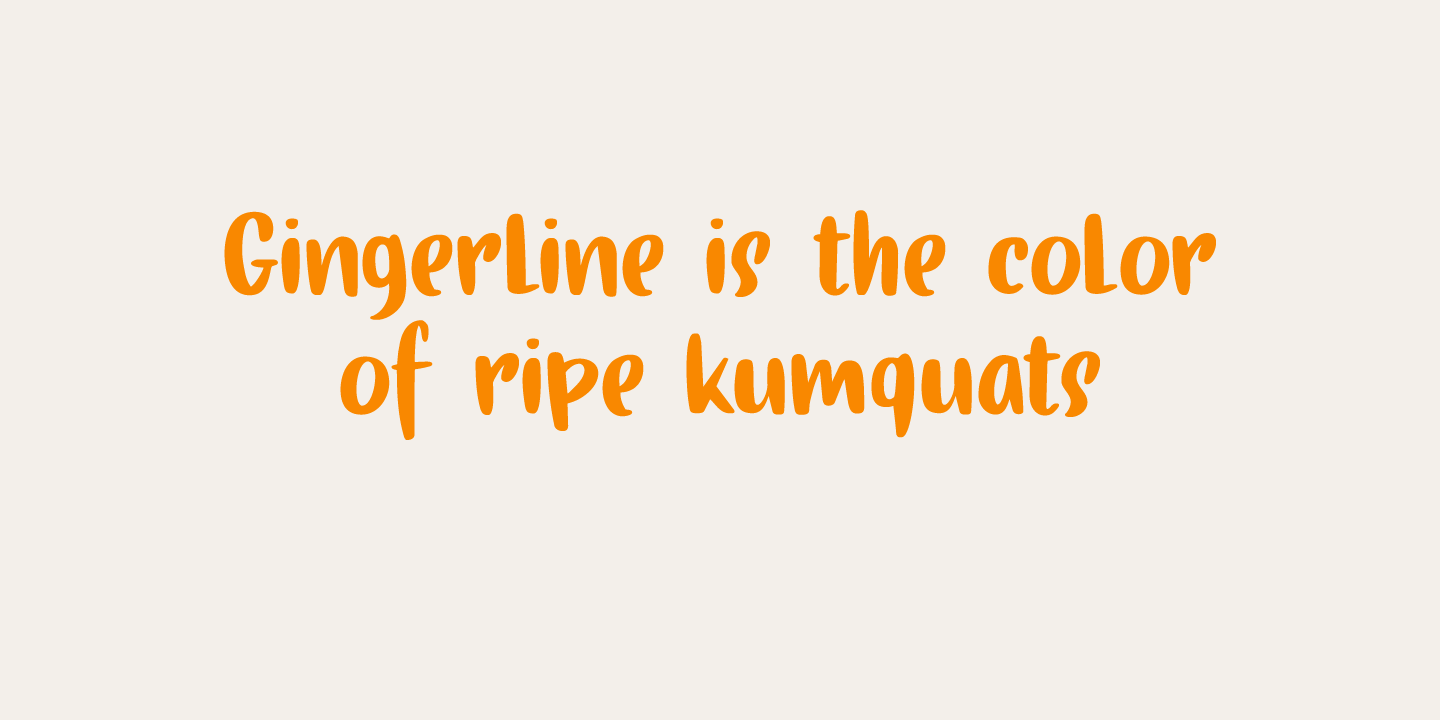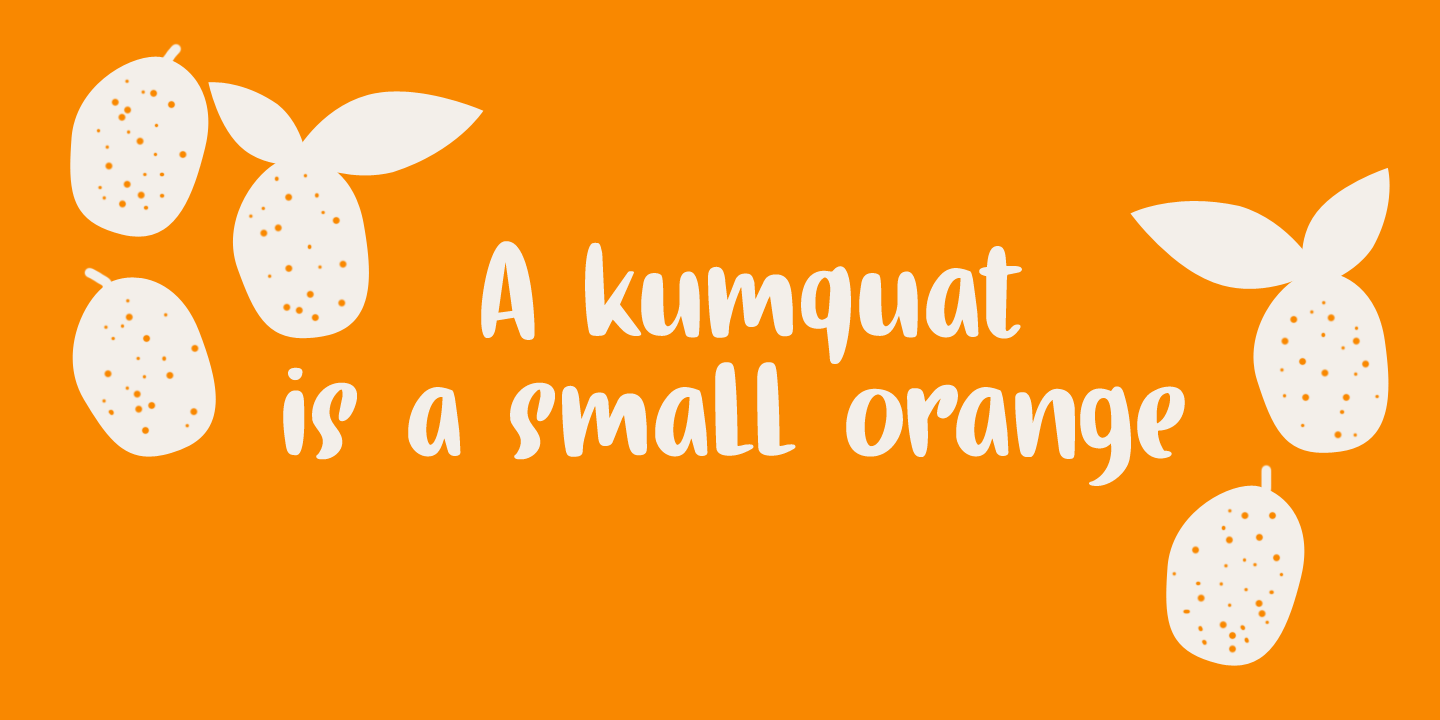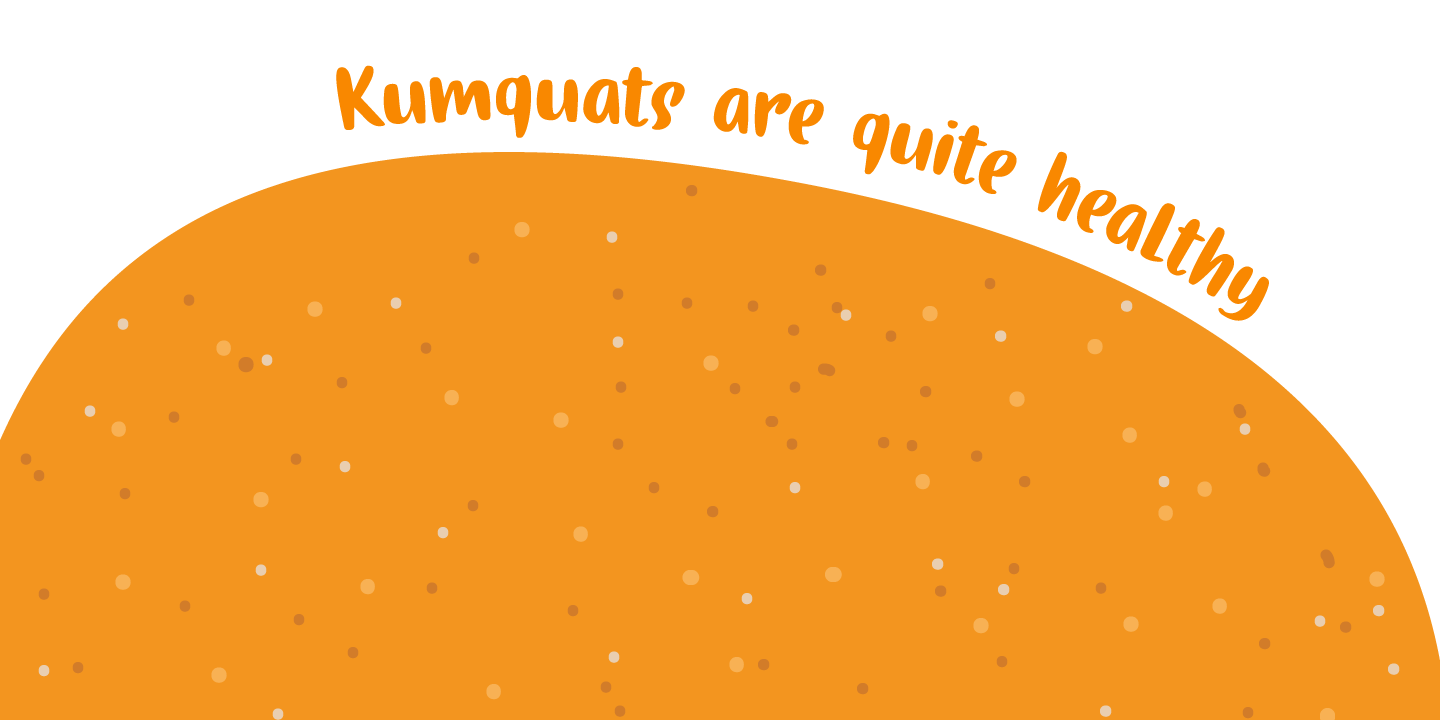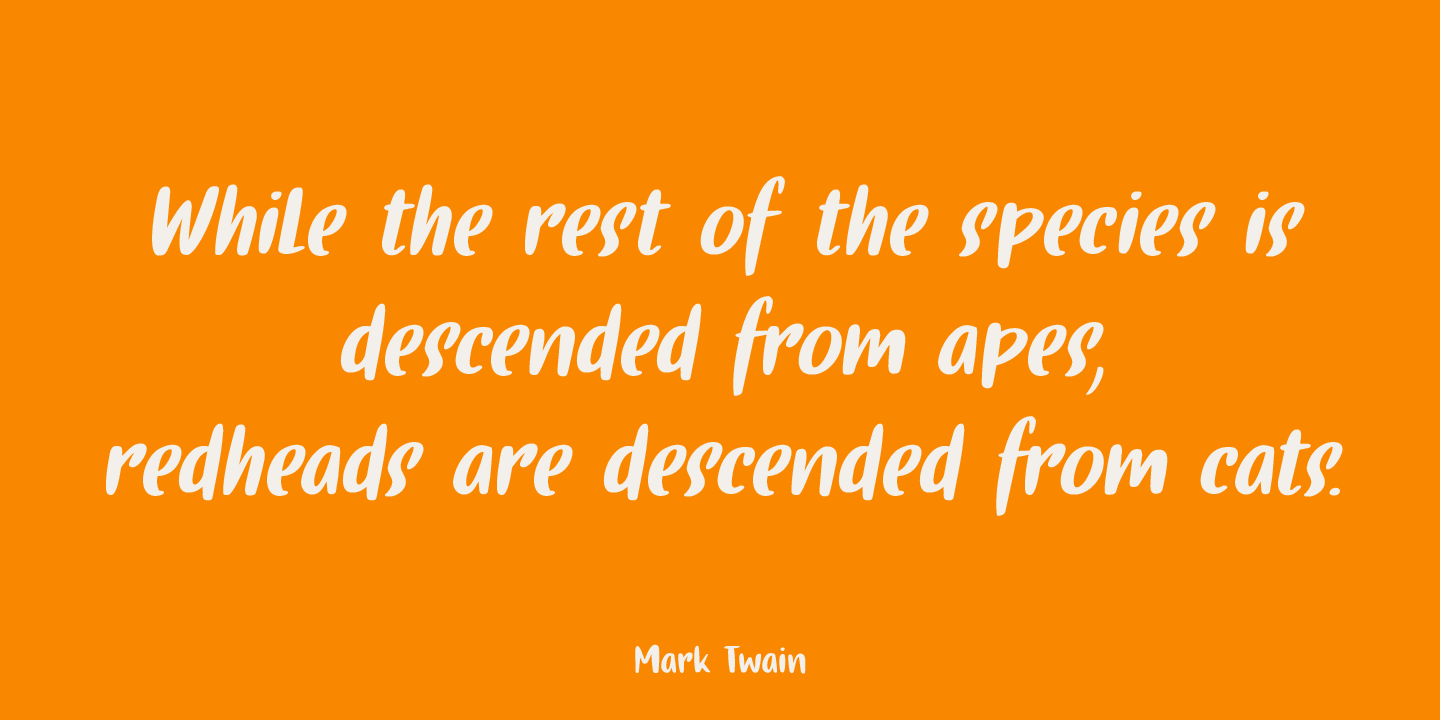
I love learning new words. I stumbled upon the term Gingerline after I named an older font Gamboge. Like Gamboge, Gingerline is a name for a shade of orange – the color of ripe kumquats to be precise. Didn\’t know that! Gingerline font is a handmade calligraphy…